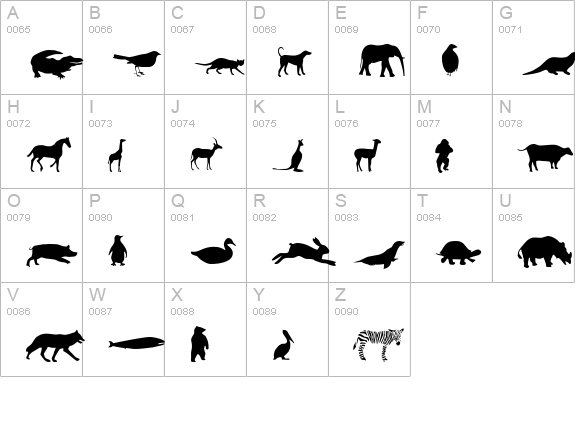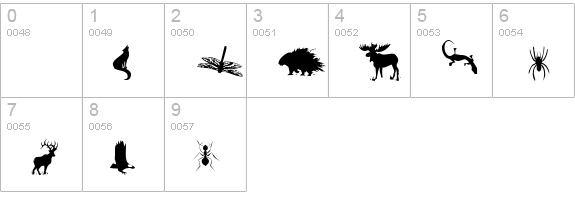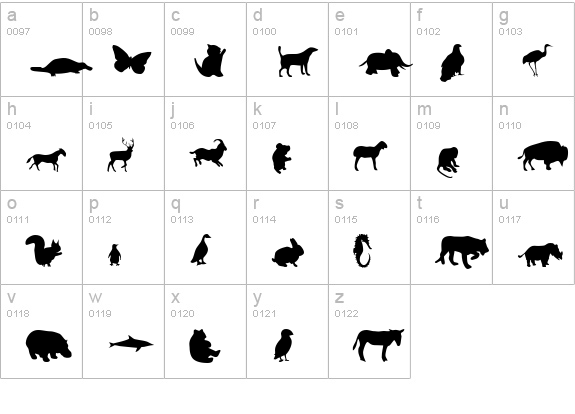
Mers Animals Font Details
Introducing the captivating Mers Animals font - a whimsical and playful typeface that is sure to add a touch of fun to any project. This unique font features adorable animal illustrations integrated into each letter, making it perfect for children's designs, greeting cards, invitations, and more. With its charming and eye-catching aesthetic, Mers Animals font is a delightful choice for those looking to inject some personality into their creative work. And the best part? Mers Animals font is completely free to download at FontsMarket.com! Simply head over to the website and grab this charming typeface to bring a smile to your designs. Don't miss out on this fantastic opportunity to add a touch of whimsy to your projects with the delightful Mers Animals font.